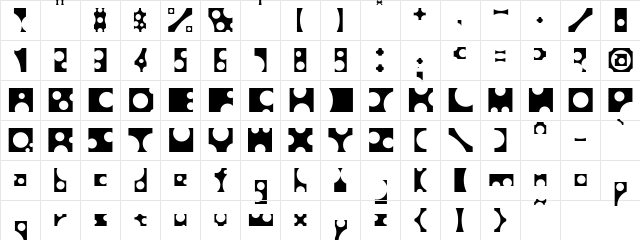
Toolego Regular
Design Context for Toolego Typeface
Toolego is a composed and adaptable typeface that performs quietly and consistently across a wide range of design contexts.